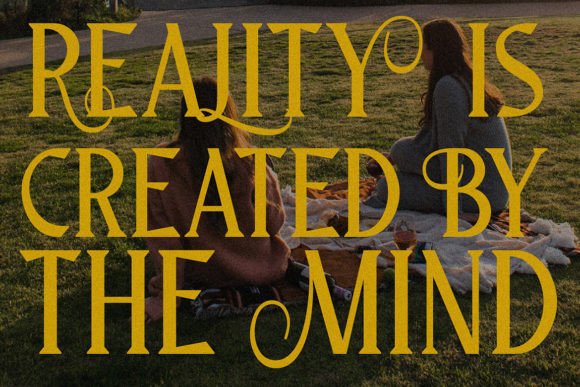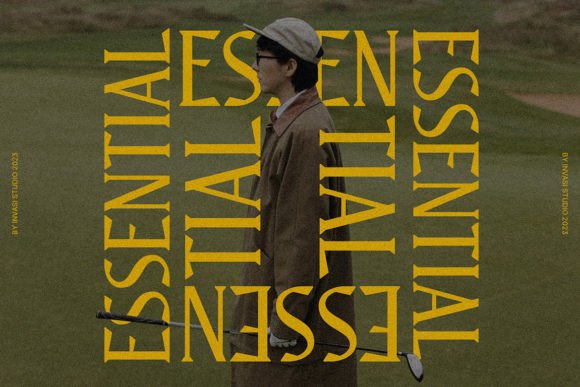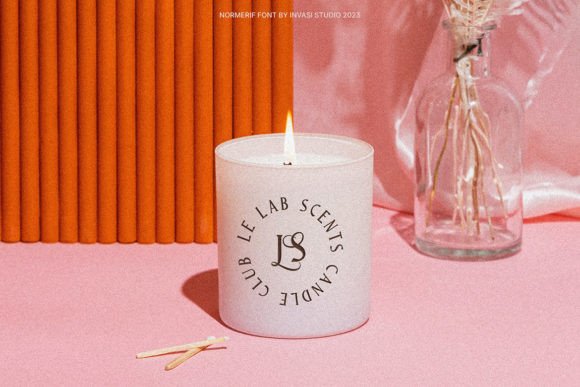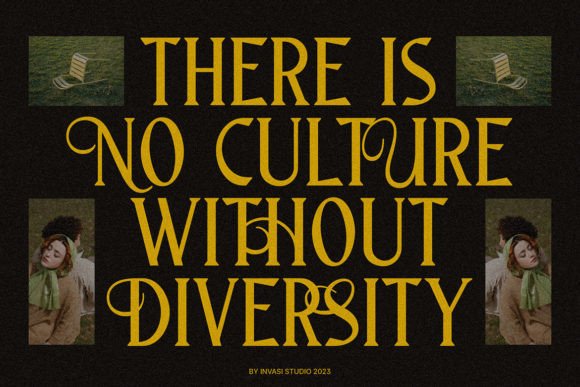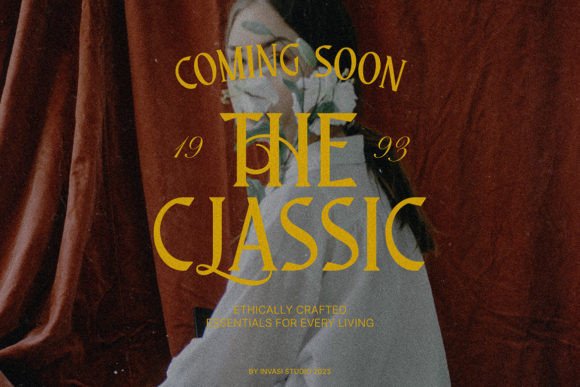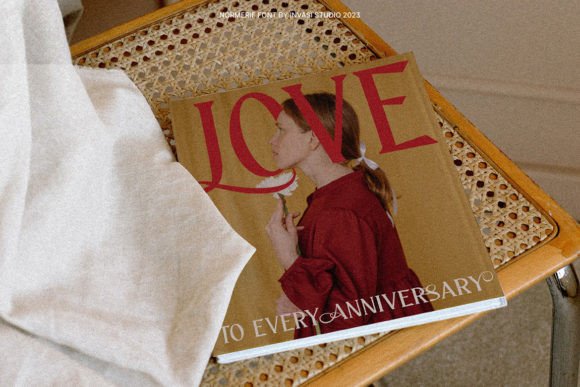
Introduction to Normerif Font
As a designer, there’s nothing quite like the thrill of bringing a creative project to life. You’re brainstorming ideas, experimenting with different designs, and searching for the perfect font to tie everything together. That’s when you stumble upon it – the perfect combination of vintage charm and modern sophistication. Welcome to the world of Normerif Font, a serif font that’s about to become your new best friend.
With its bold, chunky letterforms and clean lines, Normerif Font is the perfect design resource for adding a retro flair to any project. Whether you’re working on a branding project, creating a social media graphic, or designing a flyer, this high-quality font is sure to elevate your design game. And the best part? It’s available for free download, complete with a transparent background, making it easy to integrate into your design.
So, what makes Normerif Font so valuable for designers? For starters, its PUA encoding means you can access all the delightful glyphs and swashes effortlessly, giving you endless possibilities for creative expression. Whether you’re a seasoned pro or just starting out, Normerif Font is a must-have design resource that’s sure to inspire your next project.
Key Features of Normerif Font
- Unique characteristics: The Normerif Font features a modern, minimalist design with clean lines and a subtle flair, making it perfect for a wide range of creative projects.
- Designed for versatility, the Normerif Font is suitable for use in logos, headings, body text, and other design elements.
Honest Review: Normerif Font
I recently had the chance to work with the Normerif Font, and I must say, it’s been a pleasant experience. This font has become one of my go-to design resources for creative projects that require a unique touch.
- ✨ High-quality font with a distinctive design that adds character to any text.
- ⚠️ Limited font styles available, which might not be suitable for complex design projects.
- ⚠️ Some users might find the font’s unique design challenging to read in certain contexts.
Overall, I’m quite impressed with the Normerif Font. Its high quality and unique design make it an excellent choice for creative projects. While it may have some limitations, it’s definitely worth considering as a design resource. I’ll continue to use it in my future projects and recommend it to fellow designers.
Common Use Cases for Normerif Font
Normerif Font is perfect for a variety of creative projects, including logos, graphics, typography, and branding materials. Its high-quality design makes it an excellent choice for designers, artists, and entrepreneurs.